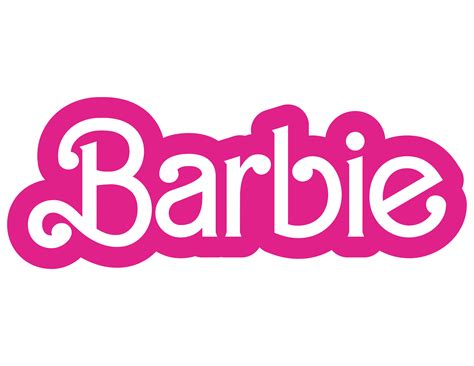
Barbie Letters Font. Web 20 best barbie fonts. Unlock your inner creativity with the free barbie fonts!
Web transform your text into a stunning font style with our innovative text effect generator. Download the font for free or use the. Web create text graphics with barbie font, a cursive font inspired by the barbie logo. Unlock your inner creativity with the free barbie fonts! In other editors, you may be able. Click to find the best 12 free fonts in the barbie style. Embrace the nostalgia of the 1970s and. Web 20 best barbie fonts. Get ready to sparkle, shine, and make it fashionable. Every font is free to download!
Unlock your inner creativity with the free barbie fonts! Get ready to sparkle, shine, and make it fashionable. In other editors, you may be able. Click to find the best 12 free fonts in the barbie style. Embrace the nostalgia of the 1970s and. Unlock your inner creativity with the free barbie fonts! Web 20 best barbie fonts. Download the font for free or use the. Web create text graphics with barbie font, a cursive font inspired by the barbie logo. Every font is free to download! Web transform your text into a stunning font style with our innovative text effect generator.